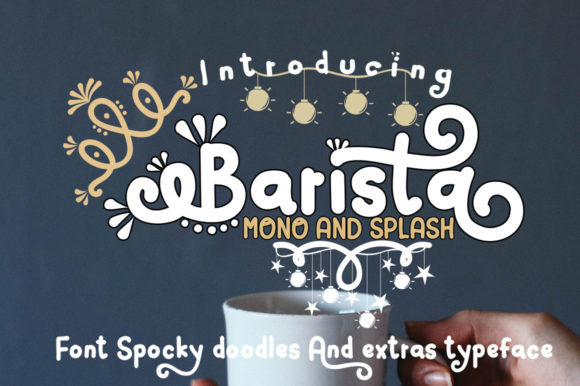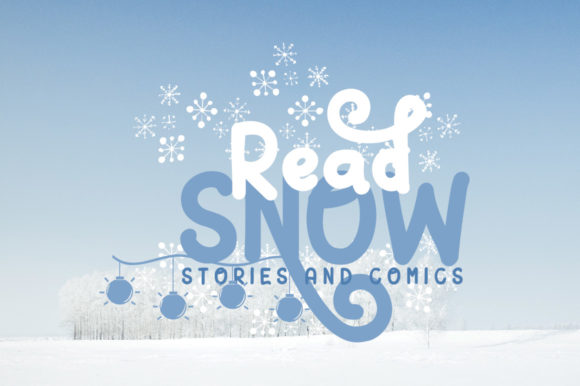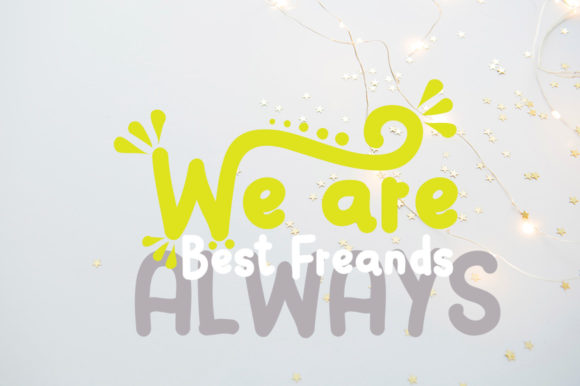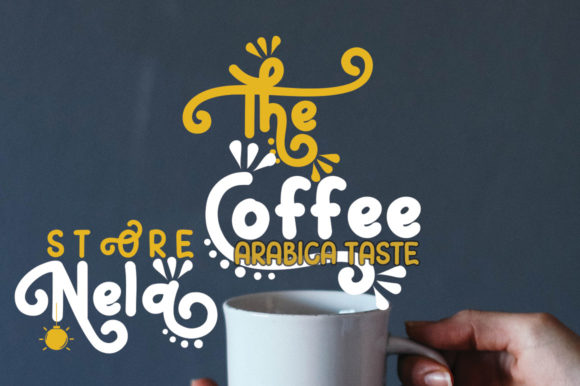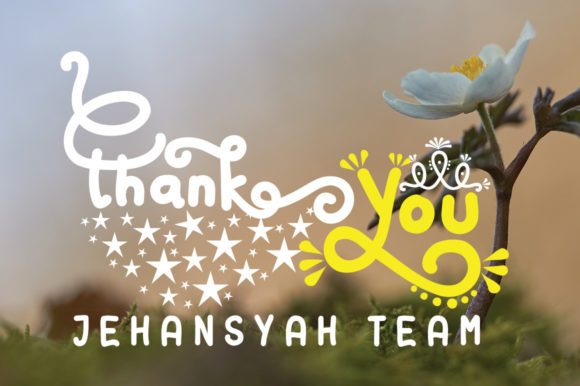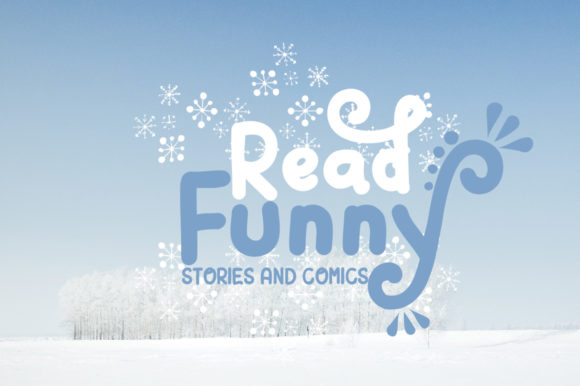
Discover the Perfect Blend: Barista Font
It’s that moment when the creative juices start flowing, and the world seems full of endless possibilities. You’re brainstorming ideas for your next project, and the perfect font is the missing ingredient to bring your vision to life. That’s when you stumble upon the charming Barista Font – a delightful, hand-drawn typeface that’s sure to add a touch of whimsy to your designs.
The Barista Font is more than just a pretty face; it’s a powerful tool for designers looking to add a playful, festive feel to their work. With its bold letters and excellent readability, this font is perfect for creating eye-catching graphics, social media posts, and even Christmas-themed designs. Whether you’re a seasoned pro or a design newbie, the Barista Font is an invaluable asset that’s sure to elevate your creative game.
Barista Font Key Features
- Font Family: Barista is a sans-serif font family designed for digital use, specifically for screen displays.
- Character Set: Supports a wide range of languages, including Latin, Cyrillic, and Greek alphabets, making it suitable for multilingual applications.
- Unique Characteristics: Barista font features a clean, modern design with a subtle rounded edge, making it highly legible and readable on digital screens.
Barista Font Review
As a designer, I was excited to dive into the world of Barista Font, a script font designed specifically for coffee shop and cafe branding. After playing around with it, here are my honest thoughts.
- Unique, hand-drawn feel that captures the essence of a coffee shop experience.
- Well-suited for branding and signage, especially for coffee-related businesses.
- Includes a range of OpenType features, making it easy to customize and personalize.
- Limited character set, which may not be ideal for extended text or body copy.
- May not be the best choice for digital use, as the font can appear pixelated or blurry.
- Some characters may not be easily legible, especially at smaller font sizes.
Barista Font is a great choice for coffee shop branding and signage, but it may not be the best option for more extensive design projects. Its unique, hand-drawn feel makes it perfect for creating a warm and inviting atmosphere, but its limitations may require additional design considerations.
Barista Font: A Practical Application Guide
The Barista Font is ideal for coffee shop logos, menu boards, and branding materials. It’s also great for creating a warm and inviting atmosphere in your designs. To get the most out of the font, experiment with different sizes, colors, and combinations with other fonts.
Some common use cases for the Barista Font include:
- Coffee shop logos and branding materials
- Menu boards and signage
- Invitations and event materials
- Restaurant and cafe menus
Alternatives to Barista Font
Playfair Display is a luxurious and elegant serif font, perfect for high-end brands and designs that require sophistication and refinement. It is ideal for use in headings, titles, and other prominent text elements. In comparison to Barista Font, Playfair Display has a more ornate and classical feel, making it suitable for formal and upscale designs.
Great Vibes is a beautiful and modern script font, ideal for use in branding, advertising, and other creative projects. It has a more casual and approachable feel compared to Barista Font, making it suitable for designs that require a friendly and inviting tone. Great Vibes is also highly legible, making it a great choice for body text.
Pacifico is a beautiful and elegant script font, perfect for use in branding, packaging, and other design projects that require a touch of sophistication. It has a more relaxed and casual feel compared to Barista Font, making it suitable for designs that require a laid-back and approachable tone. Pacifico is also highly versatile, making it suitable for use in a variety of contexts.